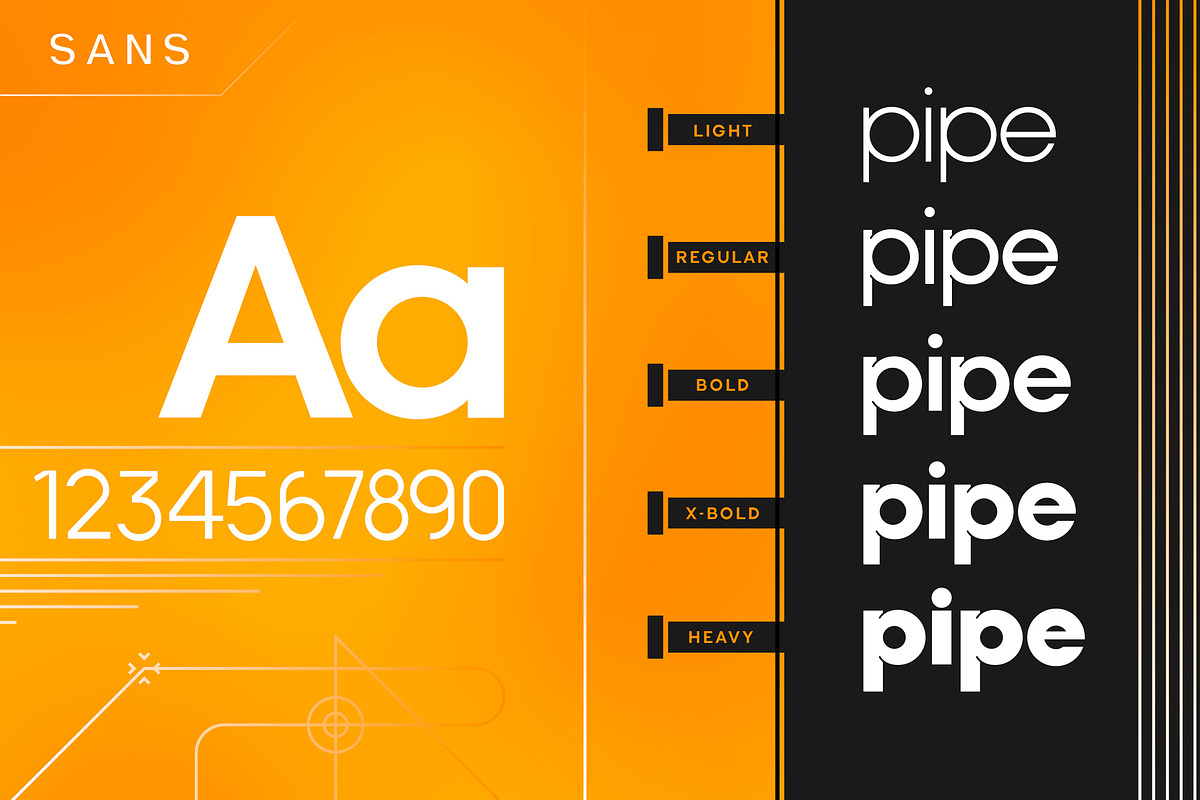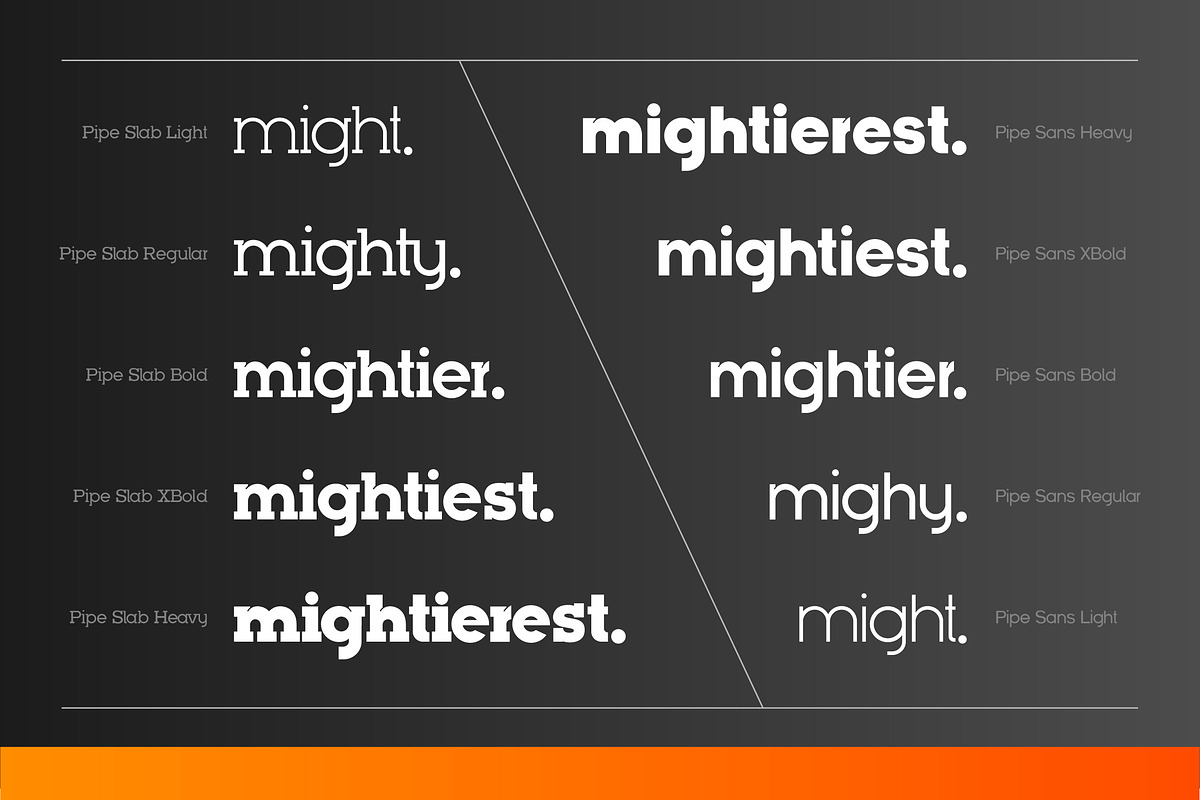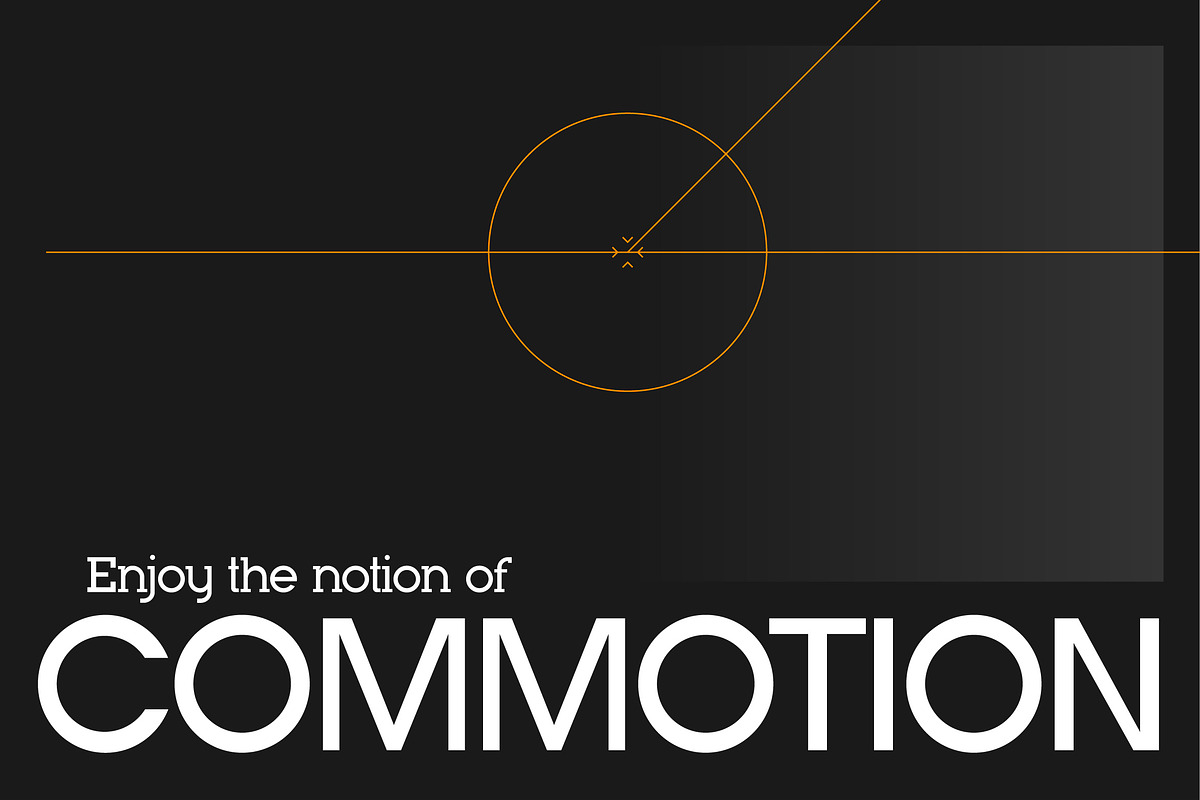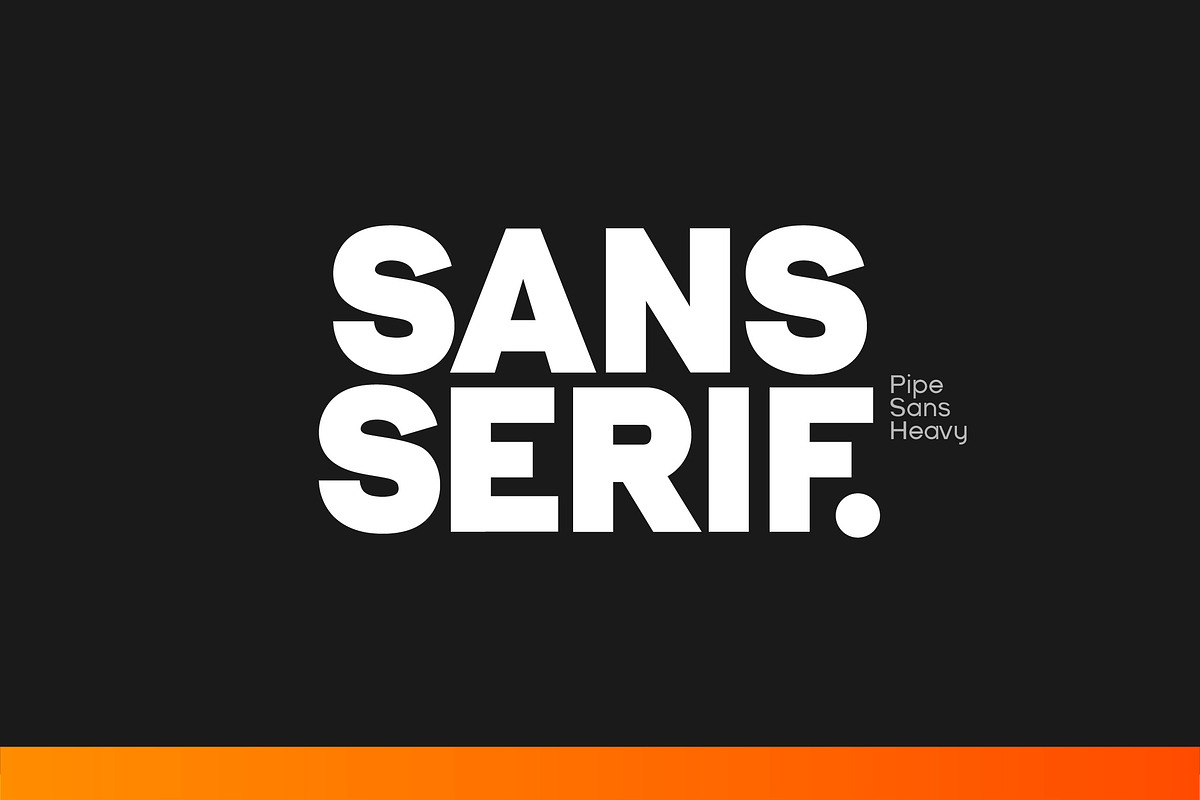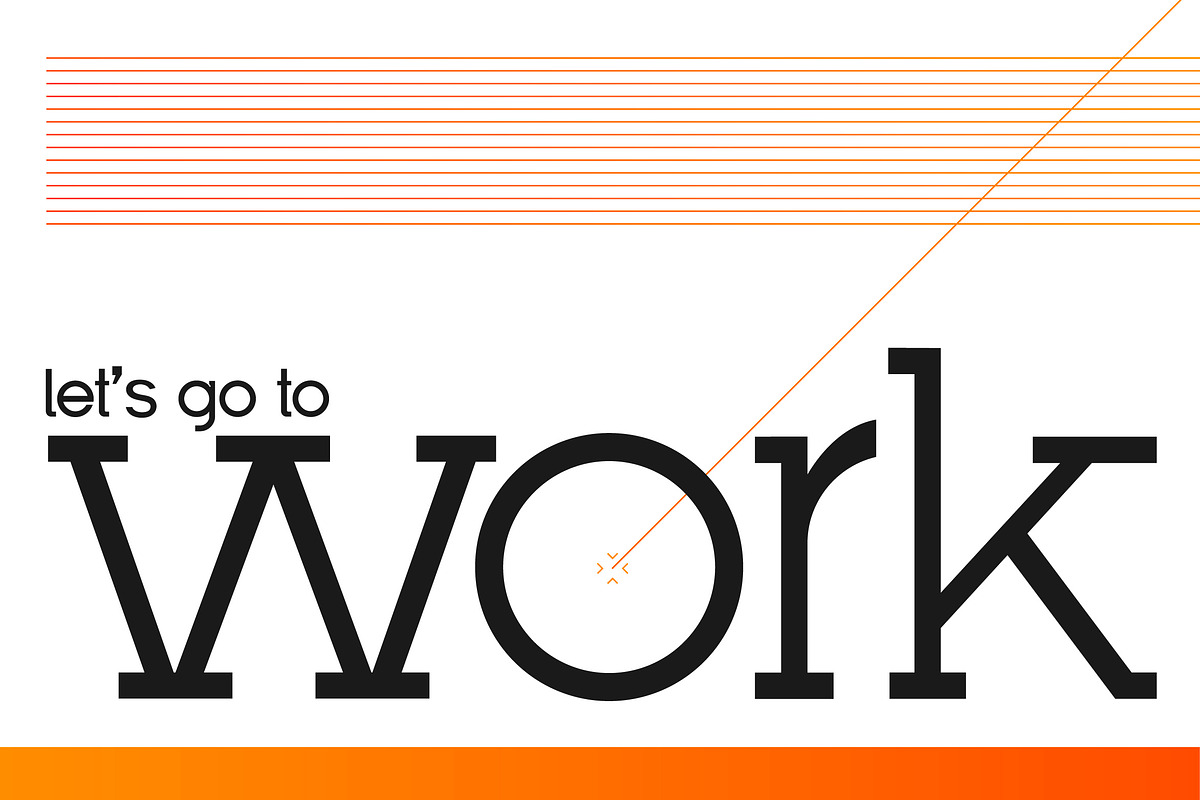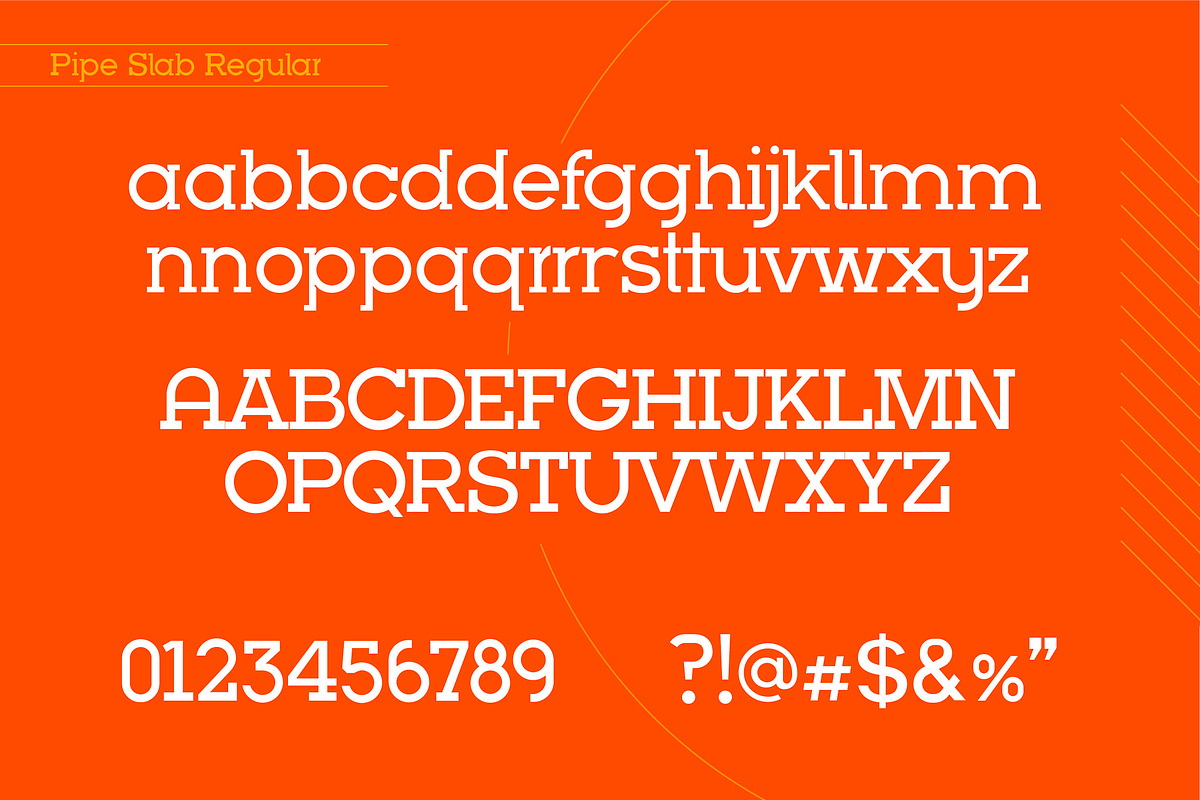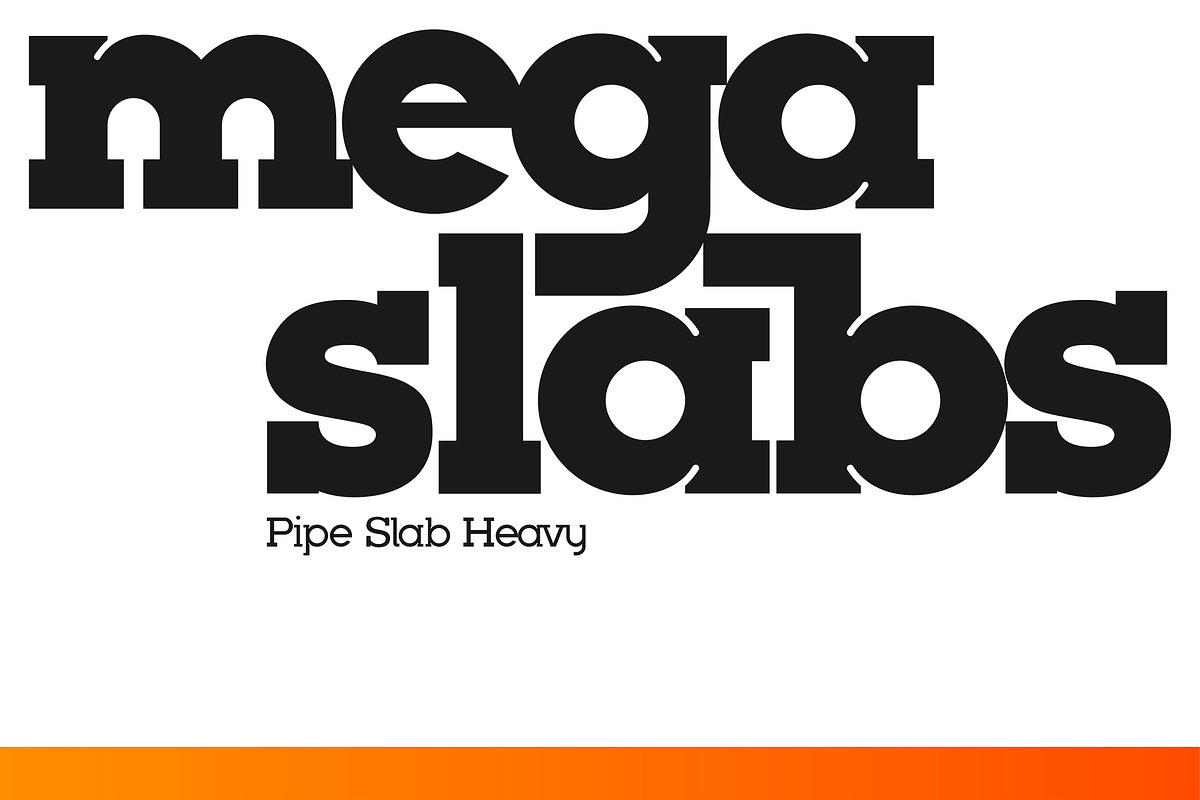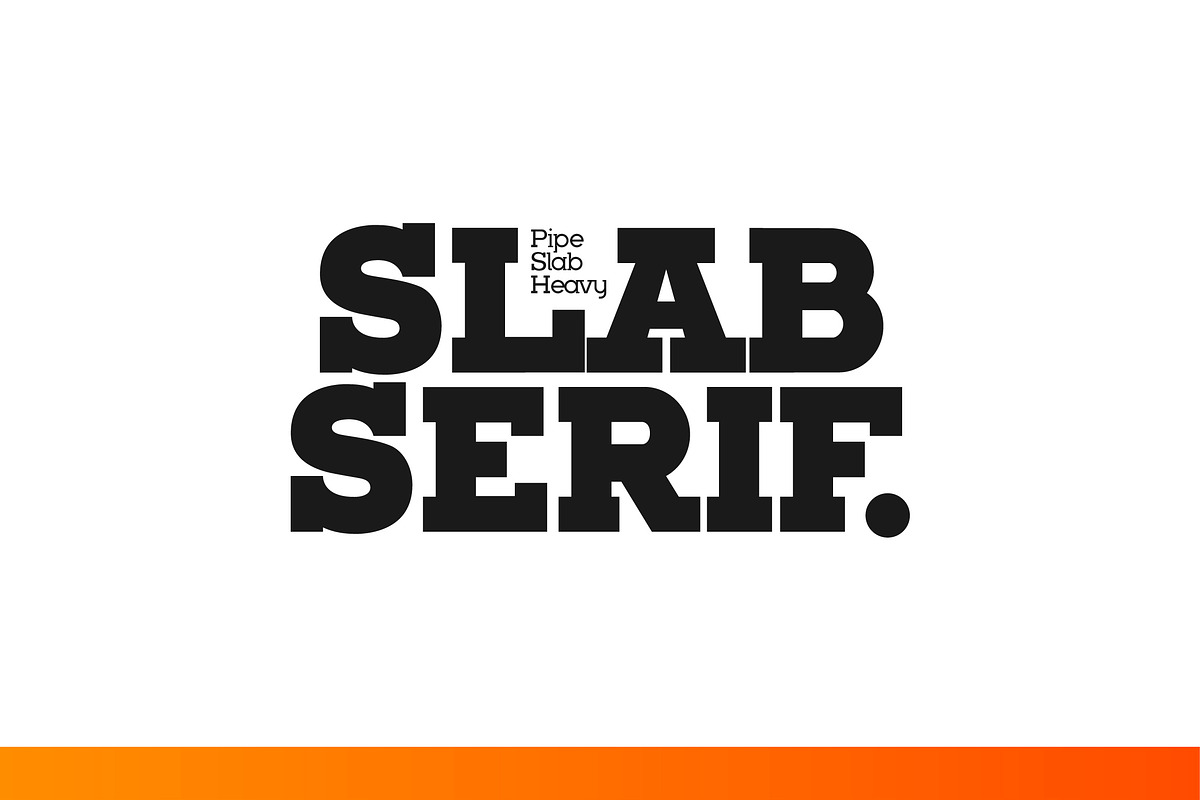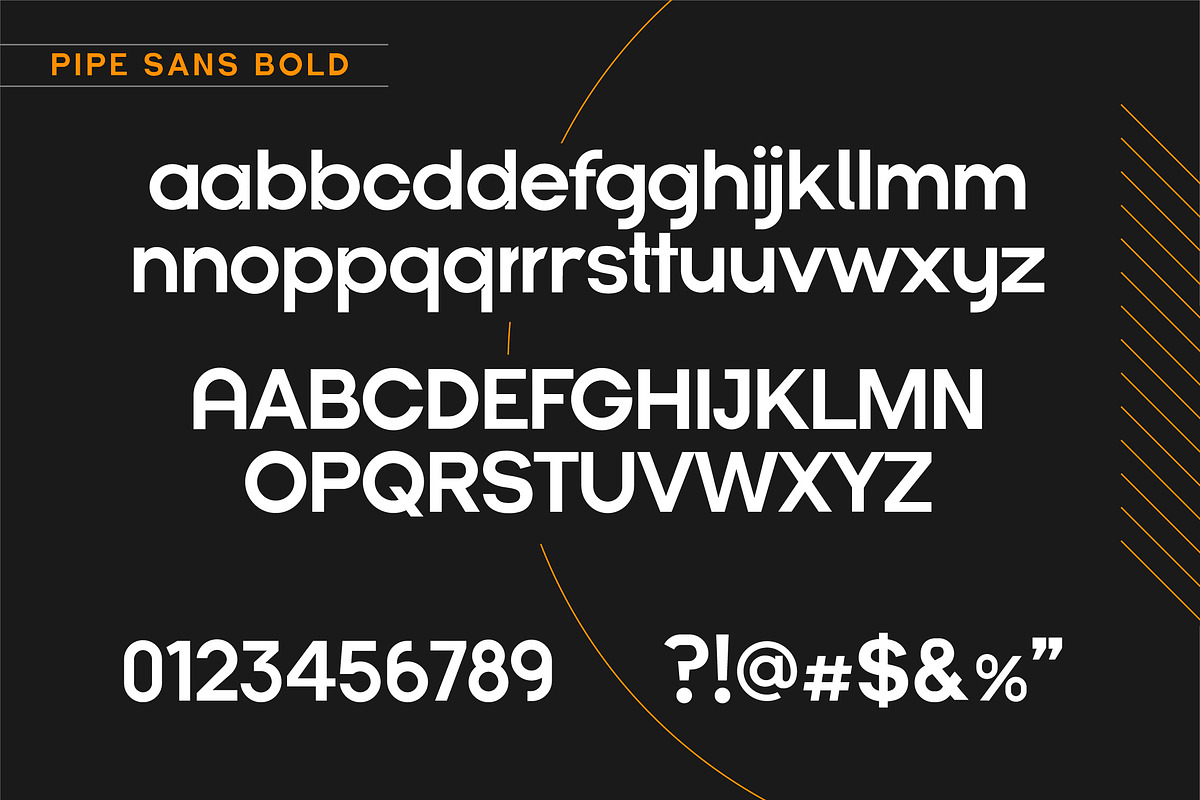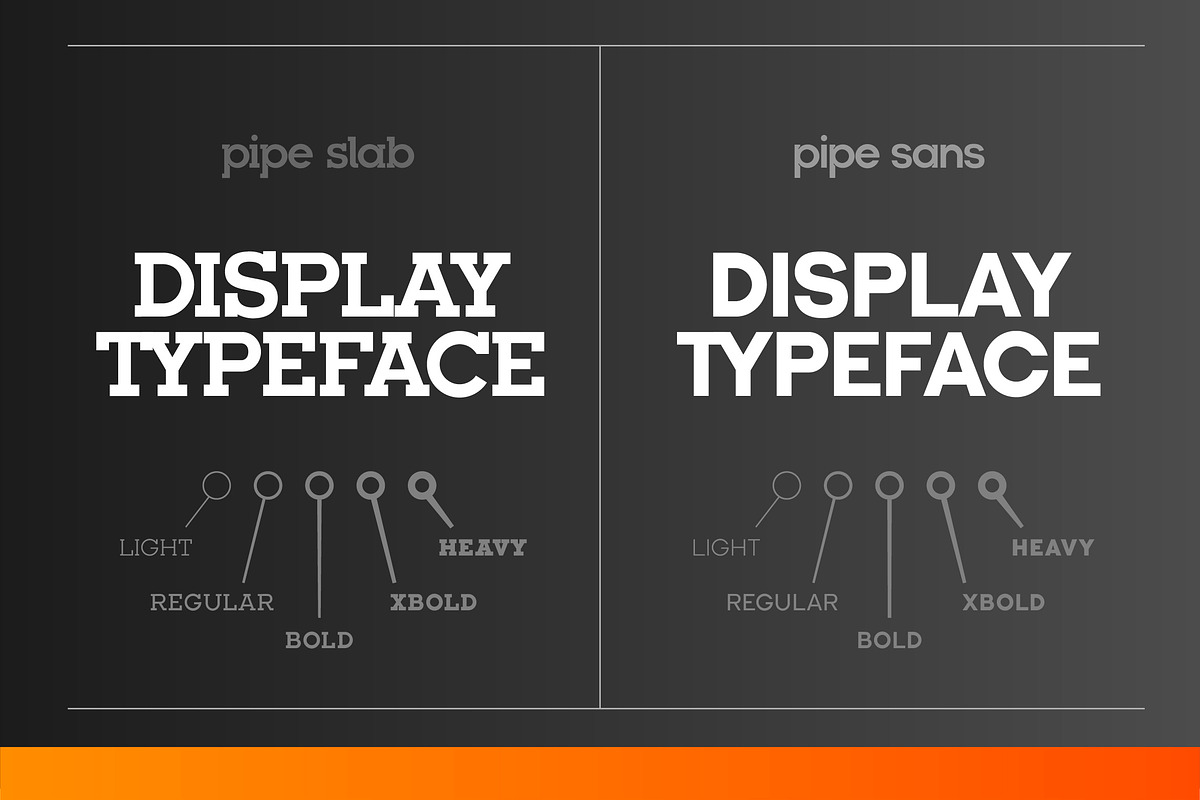
Pipe Font Bundle - Geometric Duo
Bundlerooskie! Enjoy this jam-packed bundle of the Pipe font series, featuring 10 total font weights between both families—in Slab Serif and Sans Serif styles. The geometric construction and high x-height of these fonts allow the lowercase letterforms to have a similarly "weighty" feel as the Capitals. This font bundle works well by allowing serif and sans options to maintain consistency in your design. View the details of this font duo below, and feel free to give it a spin. Thanks for stoppppping by!
- Slab Serif font with 5 weights
- Sans Serif font with 5 weights
- Numerals and Basic Punctuation
- Alternate letterforms for select characters in the "Slab" version
- Pre-Kerned Letterforms